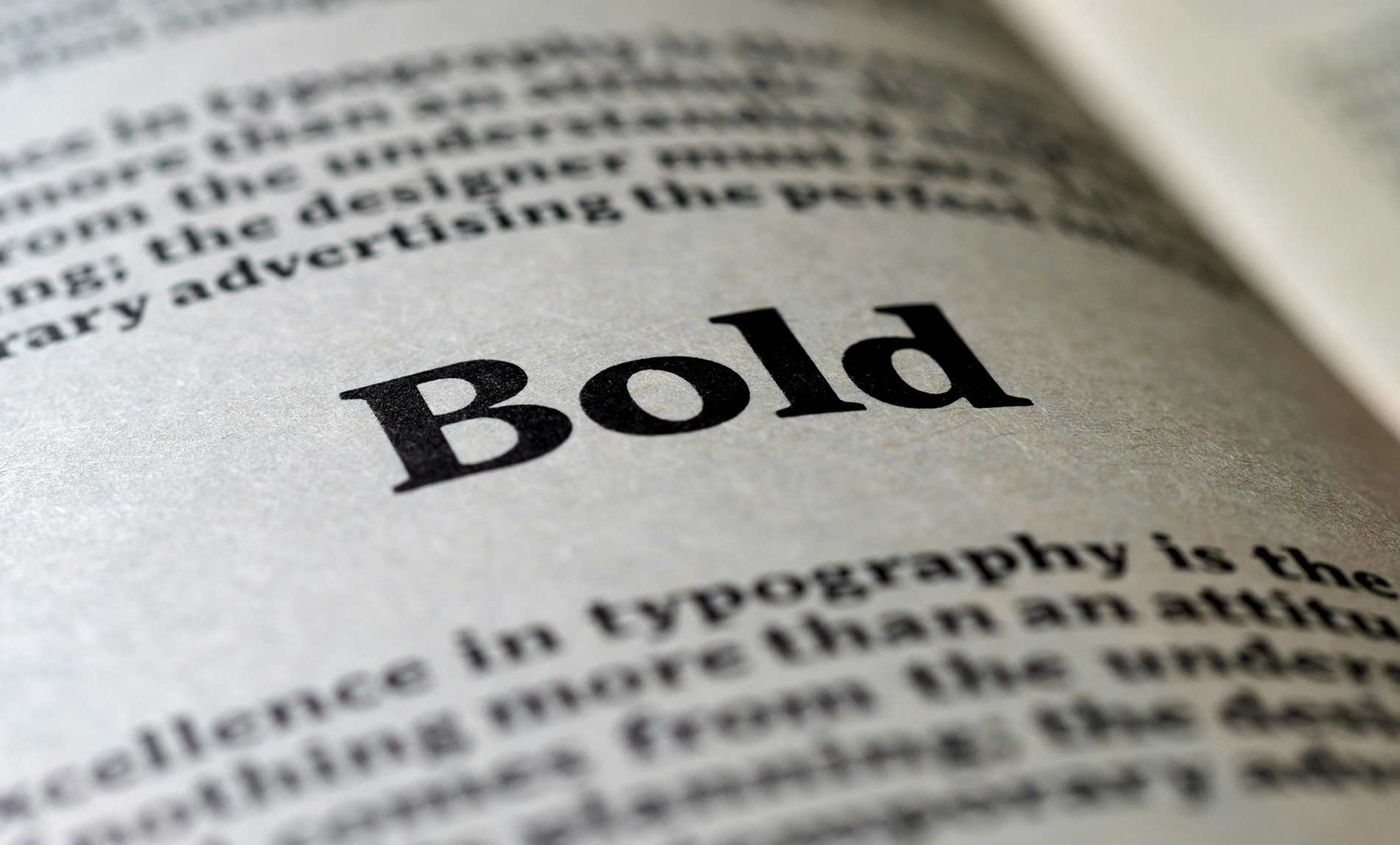
Character — An abstract unit of writing defined by a writing system or standard (such as Unicode), independent of how it looks. “A”, “5”, and “€” are each a character, but a character has no shape of its own until a font renders it.
Letter — A character that represents a sound or sound-group in an alphabetic script. Every letter is a character, but not every character is a letter — punctuation marks, digits, and symbols are characters without being letters.
Glyph — The specific visual shape used to represent a character (or part of a character) in a given typeface. A single character can have many glyphs: the letter “a” looks different in Times New Roman than in Futura, and a single font can even hold several glyphs for the same character (a small-cap “A”, a swash “A”, a contextual alternate “A”). In short: characters are meaning, glyphs are shape.
Baseline — The invisible horizontal line that most letters sit on. Round letters (o, e) dip very slightly below it to look optically aligned.
x-height — The height of a font's lowercase letters excluding ascenders and descenders, named for the height of the letter “x”. A tall x-height reads as bigger and often more legible at small sizes; a short one feels more elegant and classical.
Cap height — The height of the capital letters, measured from the baseline. Cap height and x-height together define most of a typeface's visual proportion and personality.
Ascender — The part of a lowercase letter that rises above the x-height, as in “b”, “d”, “h”, “l”.
Descender — The part of a lowercase letter that drops below the baseline, as in “g”, “j”, “p”, “q”, “y”.
Counter — The enclosed or partially enclosed negative space inside a letter, such as the hole in “o” or “e”. Counter shapes affect legibility as much as the strokes themselves.
Bowl — The curved stroke that encloses a counter, as in the round part of “b”, “p”, or “o”.
Terminal — The end of a stroke that doesn't carry a serif — the tip of a lowercase “t” or the curl at the end of an “a”. Terminals can be flat, rounded (ball terminals), or tapered.
Apex / Vertex — The apex is the topmost point where two strokes meet, as at the top of “A”; the vertex is the equivalent point at the bottom, as at the bottom of “V”.
Ear — A small stroke that projects from the top-right of the bowl in some lowercase “g” and “r” designs — a purely decorative flourish with no structural role.
Spine — The main curved stroke of the letter “S”, running from top to bottom — one of the hardest strokes to draw well in type design.
Space — The blank, unprinted area around and between letters, words, and lines. Type design is as much about shaping space as it is about shaping ink.
Kerning — The adjustment of spacing between two specific letter pairs to correct awkward gaps that generic spacing would leave — classic offenders include “AV”, “To”, “We”, and “Ya”. Kerning is pair-specific and is usually baked into a font as kerning pairs.
Tracking — (also called letter-spacing) A uniform spacing adjustment applied across a whole word, line, or block of text, rather than to individual pairs. Loosening tracking on a headline or tightening it in a dense caption are common editorial uses. Where kerning fixes individual relationships, tracking adjusts the overall rhythm.
Leading — The vertical space between lines of text, measured baseline to baseline. The term comes from the strips of lead that typesetters once inserted between lines of metal type. Tight leading feels dense and urgent; generous leading feels airy and easier to read in long passages.
Ductus — The underlying gesture of a letterform: the direction, sequence, and number of strokes used to write it, inherited from handwriting and calligraphy. Ductus is the “choreography” beneath a letter’s final shape — it’s why certain typefaces feel like they were written with a broad pen even when they’re rendered in cold, digital vectors.
Stroke — A single continuous mark that forms part of a letter — a stem, an arm, a bowl, a crossbar. Letterforms are built by combining strokes (a lowercase “n” is essentially two stems joined by an arch-stroke).
Stroke contrast — The difference in thickness between a letter’s thick and thin strokes. Low-contrast (or monoline) letterforms keep strokes roughly the same weight throughout (most sans-serifs, some slab serifs). High-contrast letterforms swing dramatically between thick and thin (Didone faces like Bodoni or Didot). Stroke contrast is one of the fastest visual cues for dating and classifying a typeface.
Lowercase — The smaller, non-capital letterforms (a, b, c…), historically developed from cursive minuscule handwriting and named “lower” case because compositors kept these letters in the lower drawer of a type case.
Uppercase — The capital letterforms (A, B, C…), derived from Roman monumental inscriptions and stored in the upper drawer of a type case — hence “upper” case.
Digraphia — A sociolinguistic term: the practice of writing a single language in two different scripts. Serbian is one of the world’s clearest living examples of synchronic digraphia — the same language written interchangeably in Cyrillic and Latin scripts by the same population at the same time, visible on street signs, packaging, and media side by side.